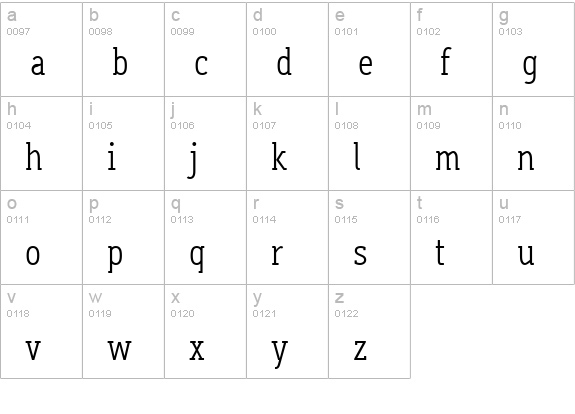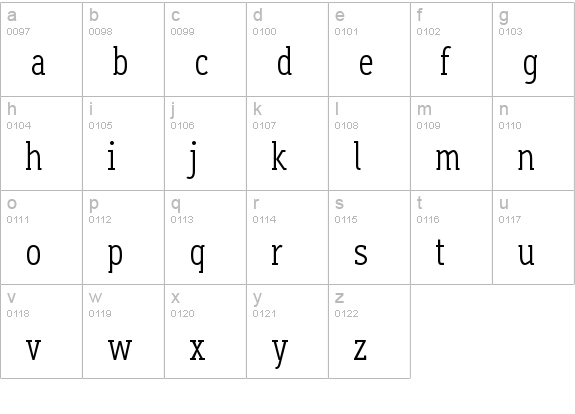
Aaux OfficeRegular Font Details
Aaux OfficeRegular is a versatile and modern font that is perfect for professional and corporate use. Its clean lines and balanced proportions make it ideal for creating polished documents and sleek designs. This font exudes a sense of sophistication and professionalism, making it a popular choice for businesses and offices. The Aaux OfficeRegular font is available for free download at FontsMarket.com, allowing you to easily access this high-quality typeface for all your projects. Whether you are designing business cards, presentations, or marketing materials, Aaux OfficeRegular is sure to elevate your work with its clean and elegant aesthetic. Download Aaux OfficeRegular for free today at FontsMarket.com and enhance your designs with this stylish and versatile font.